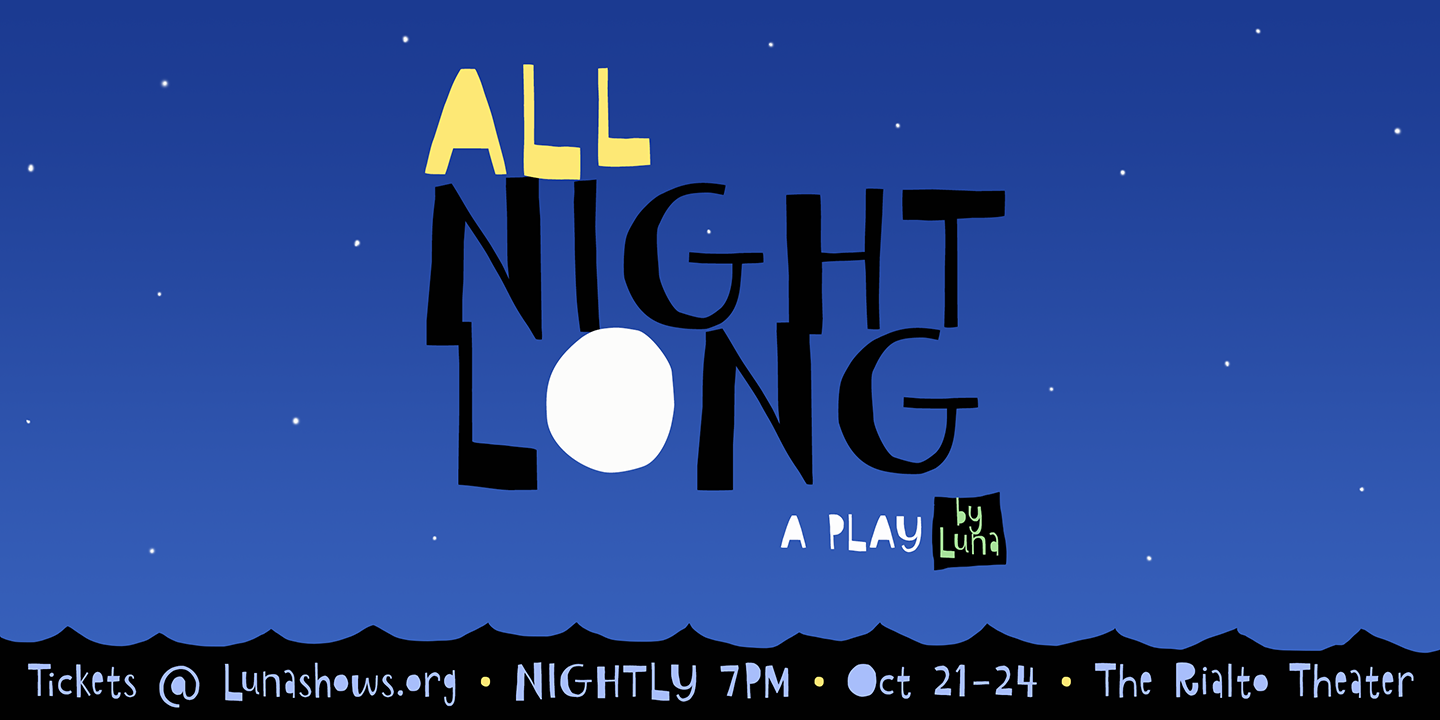
Turmeric Font is perfect for organic spice company branding, natural health product packaging, Ayurvedic wellness center communications, ethnic food restaurant marketing, herbal medicine labeling, and authentic cultural cuisine campaigns. Its golden character makes it ideal for spice merchants, natural health practitioners, Indian cultural restaurants, organic food producers, and any application requiring warm typography that conveys natural healing, golden spice richness, and the healthy benefits of traditional spices and herbal wellness practices.
Turmeric Font is exciting because it captures the golden warmth and healing properties of nature's most treasured spices through richly crafted letterforms that radiate the same health-giving energy and vibrant color as turmeric's golden essence. Its spice-inspired proportions and healing details evoke the ancient wisdom of traditional medicine and the satisfying warmth of authentic ethnic cooking, making it perfect for brands celebrating natural health and traditional culinary wisdom. The font's golden character transforms communications into expressions of natural healing and spice authenticity.
Turmeric Font family includes naturally-warm weight variations typically featuring Light, Regular, Medium, and Bold options with golden styling that maintains spice authenticity. The family often incorporates spice symbols, herbal ornaments, and natural healing elements designed for wellness applications, providing designers with comprehensive tools for creating authentic, spice-focused typographic compositions.
When selecting natural health typography solutions, Turmeric Font Free Download represents an exceptional choice for organic wellness and ethnic cuisine projects. This warm typeface brings instant spice authenticity to any design, making it invaluable for natural health companies, ethnic restaurants, and organic food brands celebrating traditional healing wisdom. Whether you're developing organic spice branding, creating natural health product packaging, or designing ethnic cuisine marketing materials, Turmeric Font provides the golden warmth and natural authenticity essential for capturing spice healing tradition in today's natural wellness marketplace.